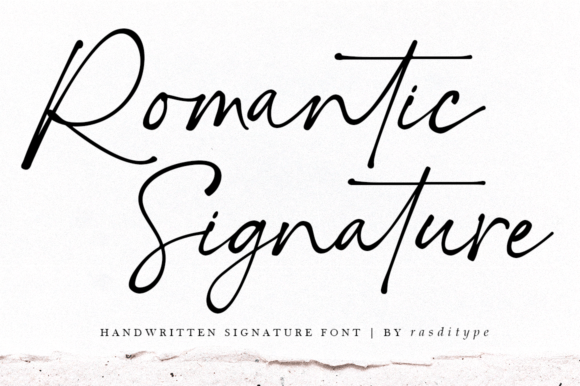
Are you looking for a beautiful script font that will add a touch of elegance to your next project? Look no further than Romantic Signature Font! This exquisite font, created by RasdiType, is perfect for those seeking a font with a cursive handwriting style and authentic feel.
Not only does Romantic Signature Font feature lovely letters and perfect calligraphy, it's also PUA encoded, making accessing all of the glyphs and swashes a breeze! This means you can easily incorporate beautiful flourishes into your designs and take your project to the next level.
But Romantic Signature Font isn't just any script font - it's the ideal choice for those seeking Fonts for Script Tattoos. With its delicate yet bold strokes, Romantic Signature Font will create a stunning and timeless tattoo design that's sure to impress.
Romantic Signature Font is perfect for a variety of projects, from wedding invitations to branding materials to social media graphics. With its romantic and graceful feel, this font will add a touch of sophistication to any project.